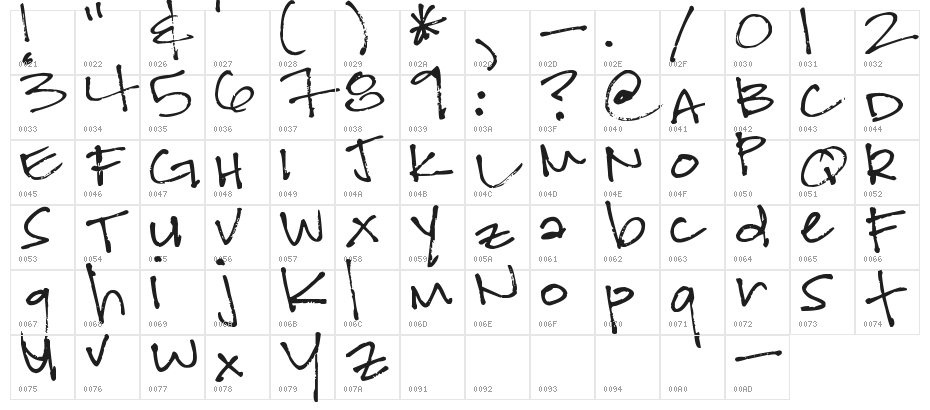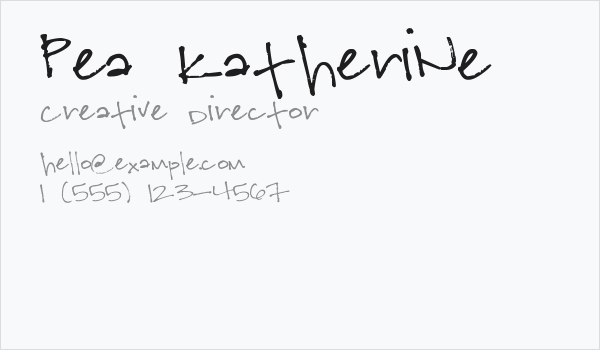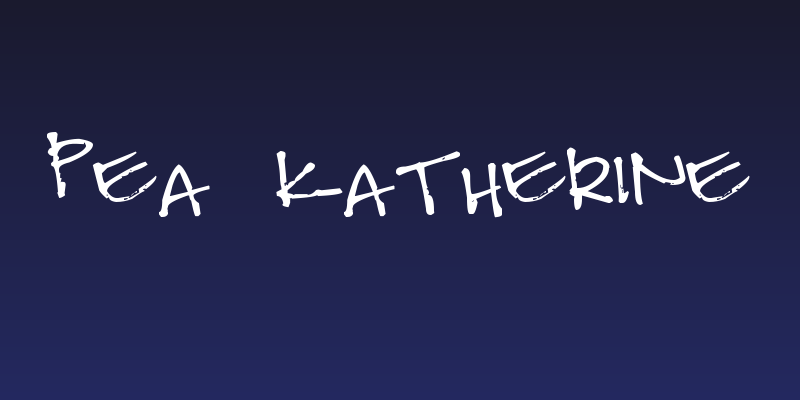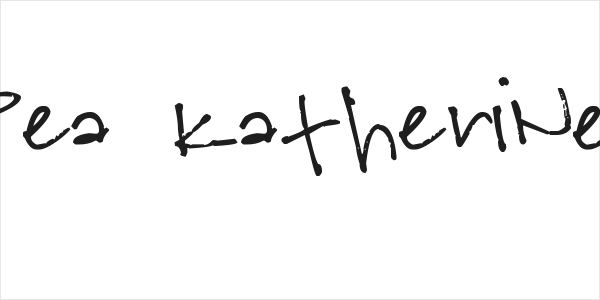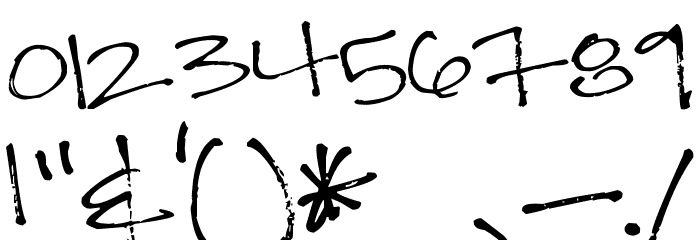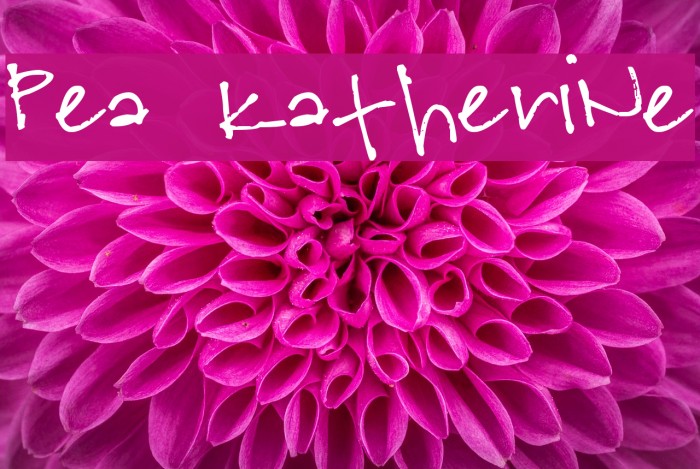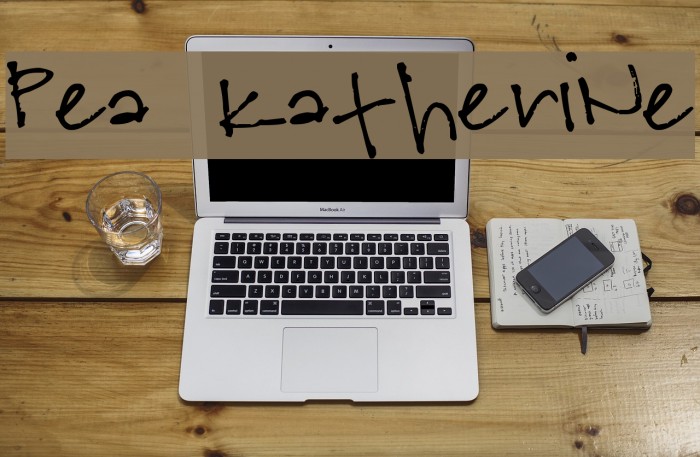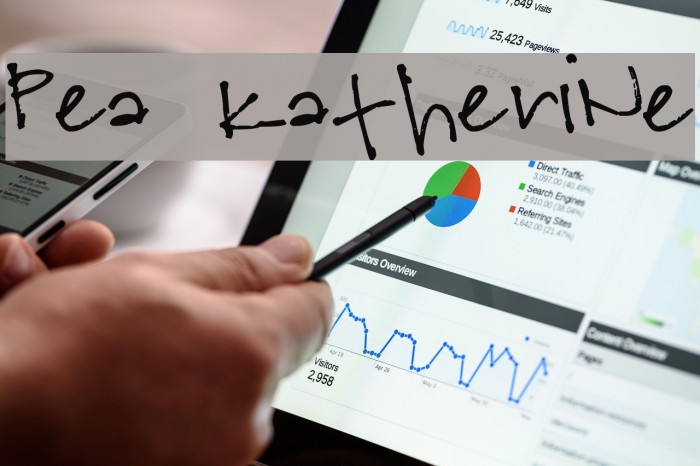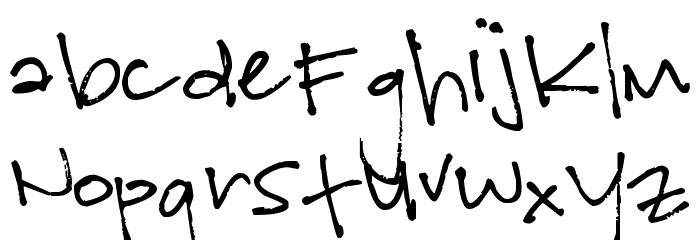
Pea Katherine Font
Pea Katherine Description
This font exudes a casual, handwritten style with a playful and slightly chaotic appearance. The strokes are uneven and mimic the natural flow of handwriting, giving it a personal and informal touch. The letters vary in size and orientation, adding to the dynamic and spontaneous feel. The texture of the strokes suggests a brush or marker, with some areas appearing thicker and others thinner, creating a sense of movement and energy. This font is ideal for projects that require a personal, creative, or artistic touch.
| Overall Style | Casual, Artistic |
| Use Case | Logos, Headlines, Creative projects |
| Proposed Projects | Great for greeting cards, personal notes, creative projects, and informal branding. |